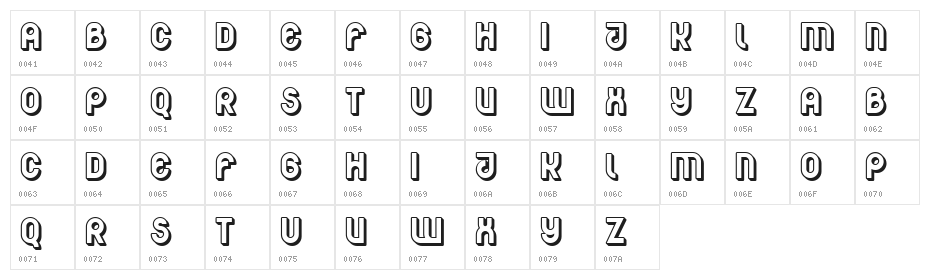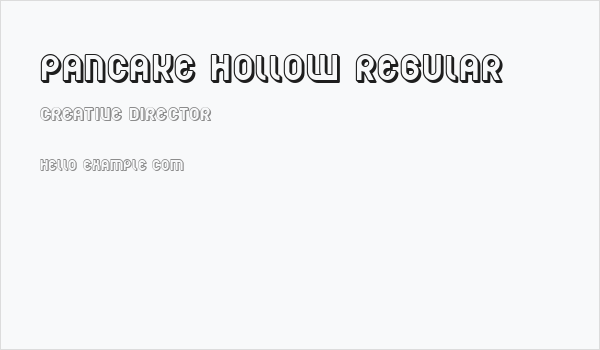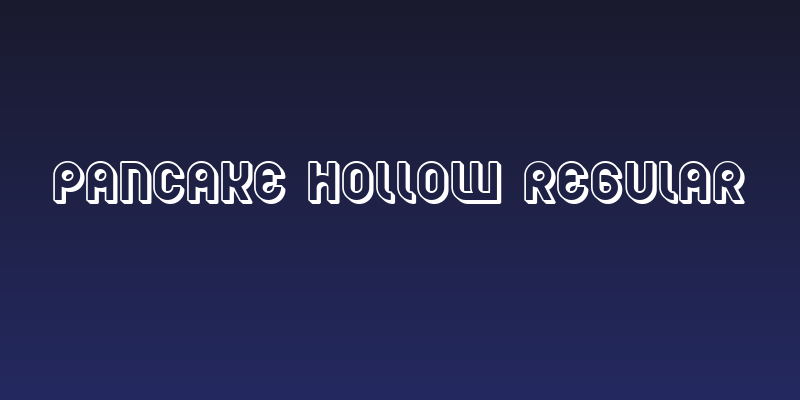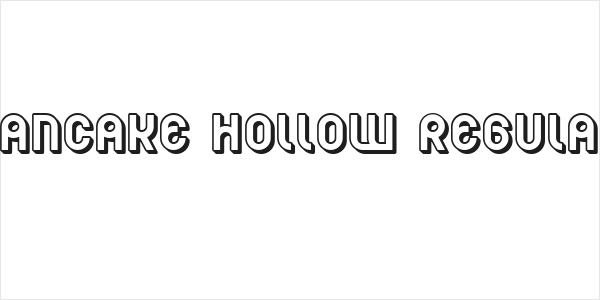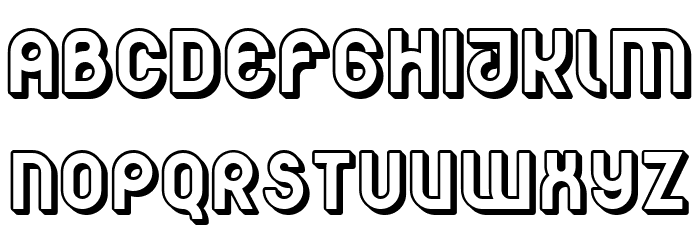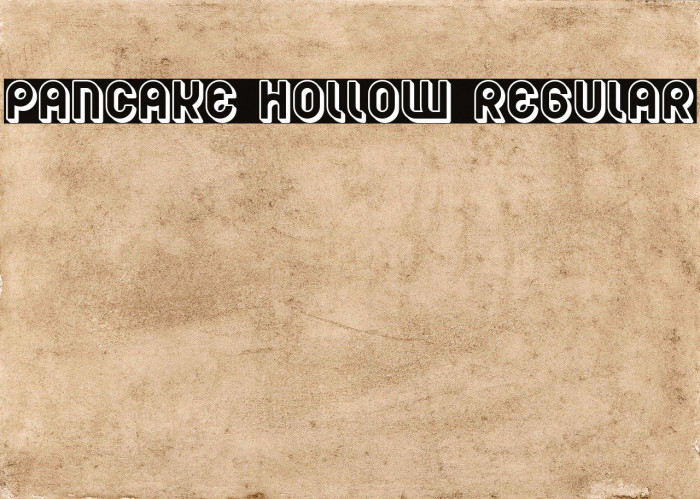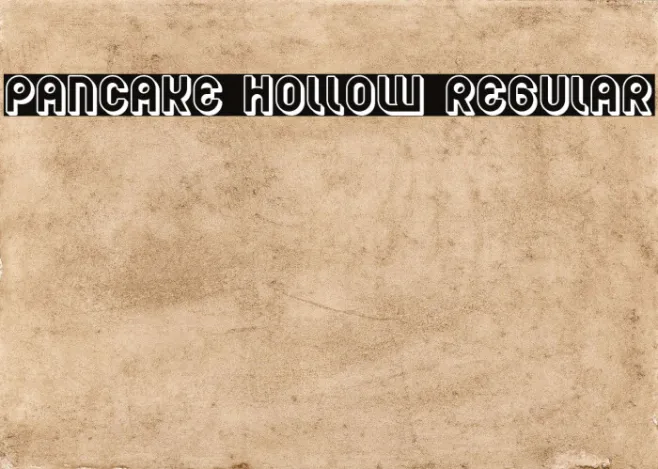
Pancake Hollow Regular Font
Pancake Hollow Regular Description
This font features a bold and playful design with a hollow interior, creating a striking outline effect. The characters are rounded and geometric, giving them a modern and approachable appearance. The uppercase letters are consistent in height, with a uniform width that maintains a balanced look. The font's hollow style adds a unique dimension, making it stand out in various design contexts. Its clean lines and structured form make it suitable for eye-catching headlines and creative projects. The overall style is both contemporary and fun, ideal for designs that require a touch of whimsy and boldness.
| Proposed Projects | Ideal for headlines, posters, logos, and branding materials that require a bold and playful touch. |